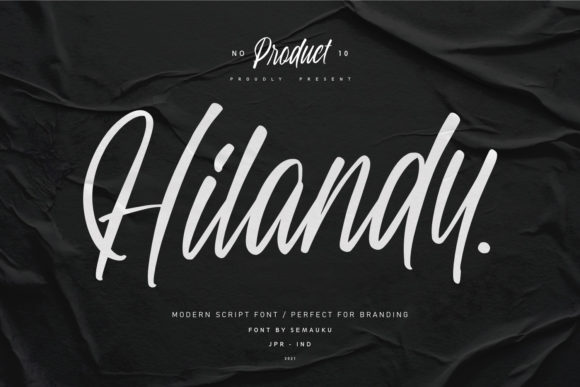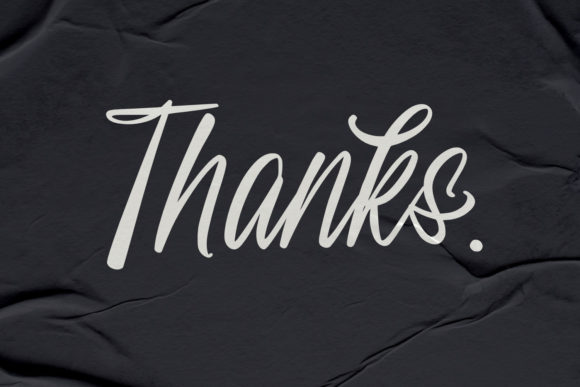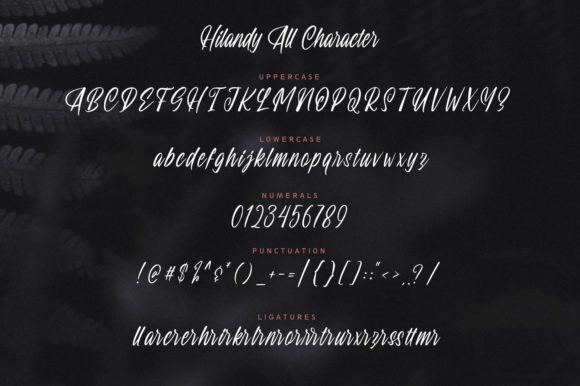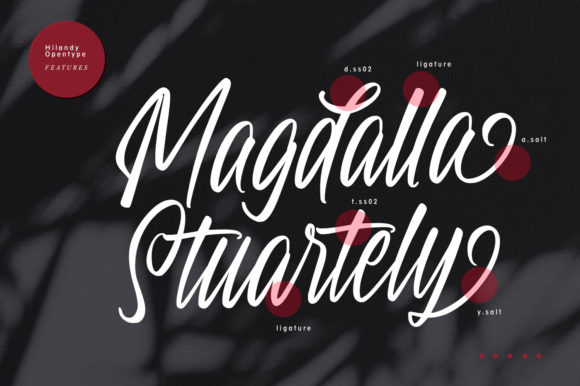
About Hilandy Font
Hilandy is a stunning cursive font that exudes elegance and refinement. With its graceful and flowing letterforms, it adds a touch of sophistication to any design that requires a customized and personalized touch.
The beauty of Hilandy lies in its intricate and carefully crafted details. Each letter is meticulously designed to create a harmonious and seamless flow. The elegant curves and graceful strokes of Hilandy make it a captivating choice for various design projects.
Whether you’re creating logos, branding materials, wedding invitations, or any other design that requires a refined and customized touch, Hilandy is a perfect fit. Its timeless appeal and versatility make it suitable for a wide range of applications.
One of the standout features of Hilandy is its PUA encoding. This means that you have easy access to a vast collection of glyphs and swashes, allowing you to add decorative elements and embellishments effortlessly. This versatility enables you to create unique and visually appealing designs that truly stand out.
With Hilandy, you can elevate your designs and bring a touch of elegance to every project. Its cursive and sophisticated style will enhance any composition and leave a lasting impression on your audience. Whether used for headings, titles, or body text, Hilandy shines in its ability to convey a sense of refinement and class.
In summary, Hilandy is a cursive and elegant handwritten font that adds a customized touch to any design. Its PUA encoding ensures easy access to a wide range of glyphs and swashes, allowing you to unleash your creativity and personalize your designs. Embrace the beauty and sophistication of Hilandy, and watch your projects come to life with its captivating elegance.